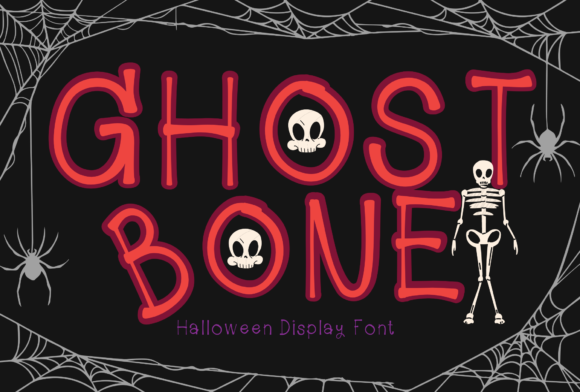
Are you ready to take your Halloween designs to a whole new level of bone-chilling style? Look no further than Ghost Bone Font, the ultimate secret weapon for creating spine-tingling text that will leave a lasting impression on your audience.
With its slender, ethereal strokes and a hint of spooky charm, this standout display font will cast a spell on your Halloween party invitations, spine-tingling posters, or any other design that craves a touch of the macabre. Picture perfect for spooky season, Ghost Bone Font will add a touch of hair-raising sophistication to any project. Its versatility extends beyond Halloween, making it a perfect choice for creating eye-catching text for horror-themed movies, spine-chilling novels, or any design that seeks to evoke a sense of mystery and intrigue.